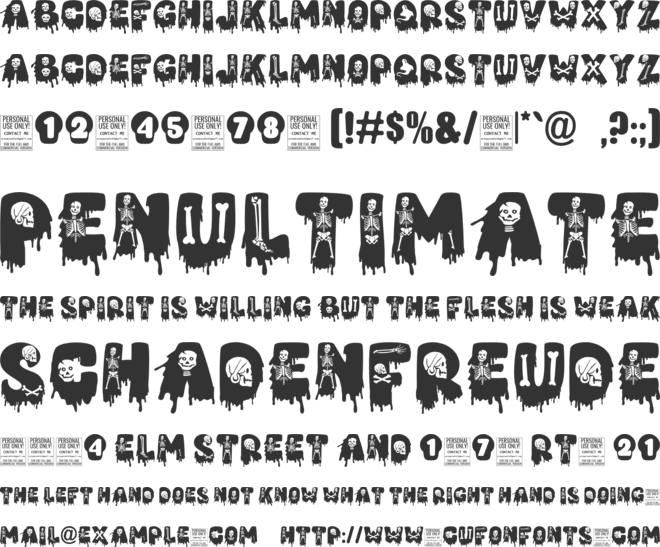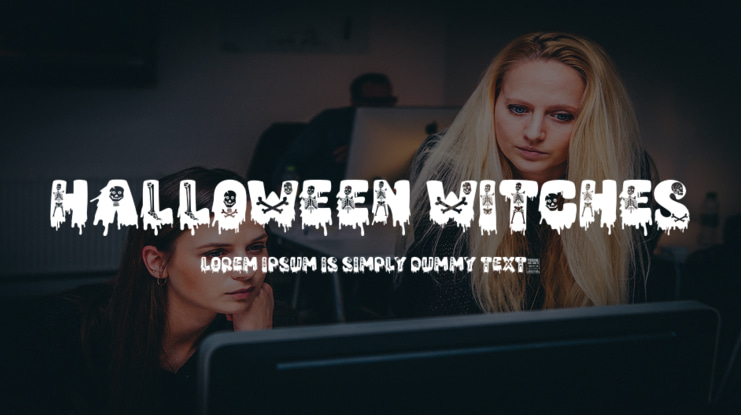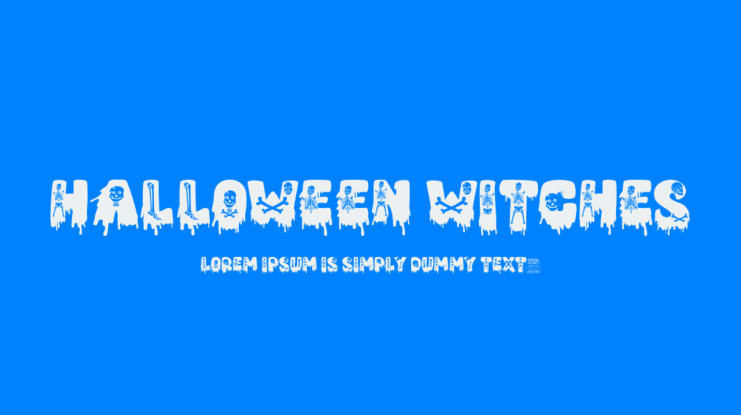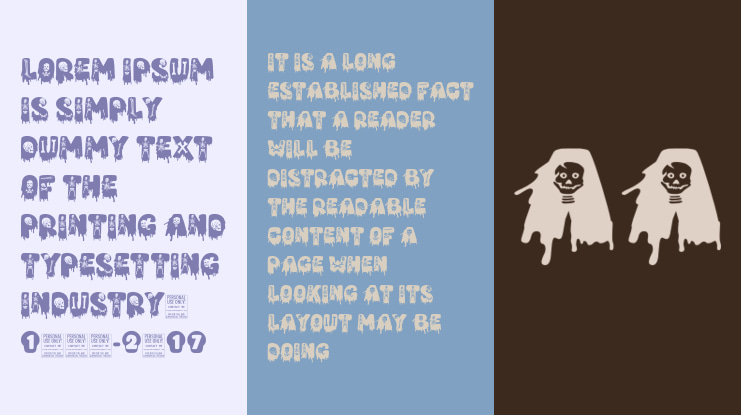
Halloween Witches Font Family
Halloween Witches is a fun duo font (display and script) with a scary and cute Halloween theme. Masterfully designed to become a true favorite, this font has the potential to bring each of your creative ideas to the highest level.